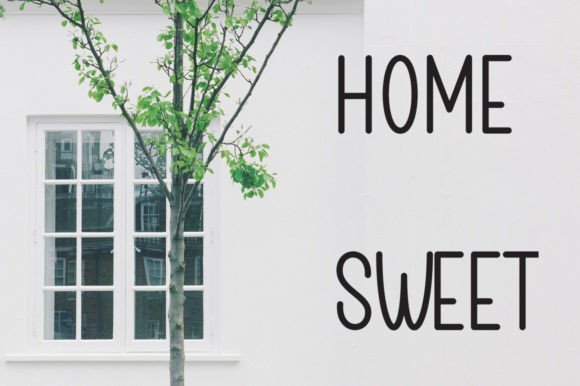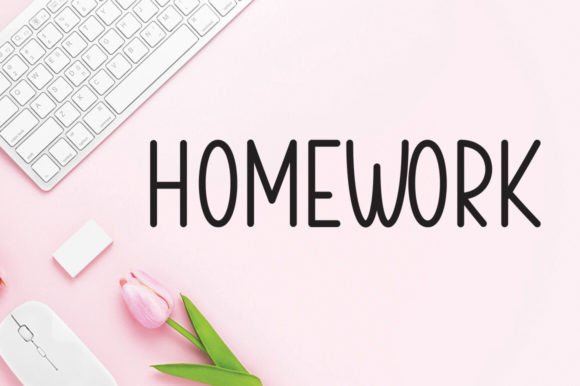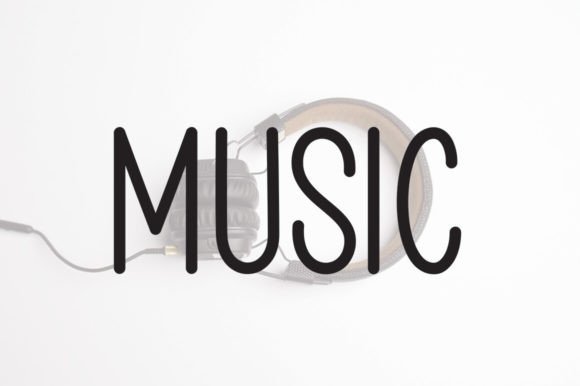
Minimal Font
About the Minimal Font
Explore the possibilities with Minimal Font, a font that offers both beauty and functionality. Minimal is simplistic, yet elegant sans serif with a futuristic feel. Get inspired by its futuristic feel.
Minimal excels in headlines, short body copy, and branding applications where a clean, modern aesthetic is desired. Its geometric forms work particularly well for logos, posters, and website headers. However, avoid using Minimal for large blocks of text or UI elements; its minimalist nature can lead to reduced readability in lengthy paragraphs.
The font’s core personality is sleek and sophisticated, with a subtle futuristic edge. It suits brands projecting innovation, technology, or a minimalist lifestyle. It pairs well with a warmer serif like Garamond for a balanced contrast or a geometric sans-serif like Futura for a consistently modern feel. A script font like Pacifico could add a touch of handwritten elegance for specific applications.
Consider pairing it with a contrasting typeface to build visual hierarchy and avoid monotony. For example, using Minimal for headlines and a more readable sans-serif for body text provides optimal visual impact and legibility.
Minimal Font Example